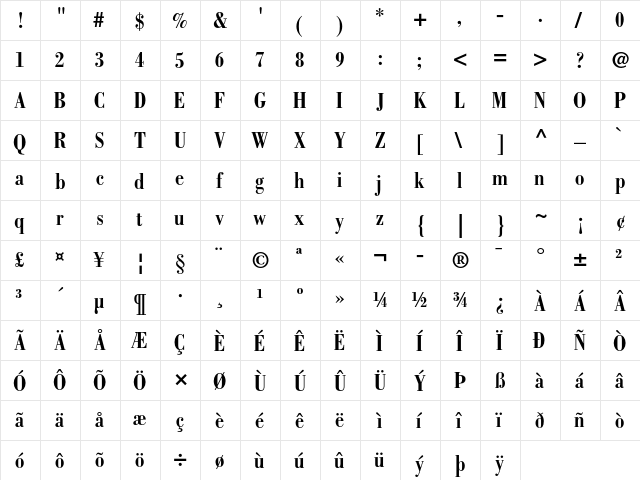
Bodoni Bold Condensed
Design Context for Bodoni Typeface
Bodoni takes a measured approach to typography — its balanced proportions and neutral character make it a reliable workhorse for both digital and print work. The heavy weight commands attention and anchors typographic hierarchies. Its narrow stance lets it pack a punch even in space-constrained designs.
Pro Tip: Use Bodoni in both headline and body roles to test its range before committing to a single application.